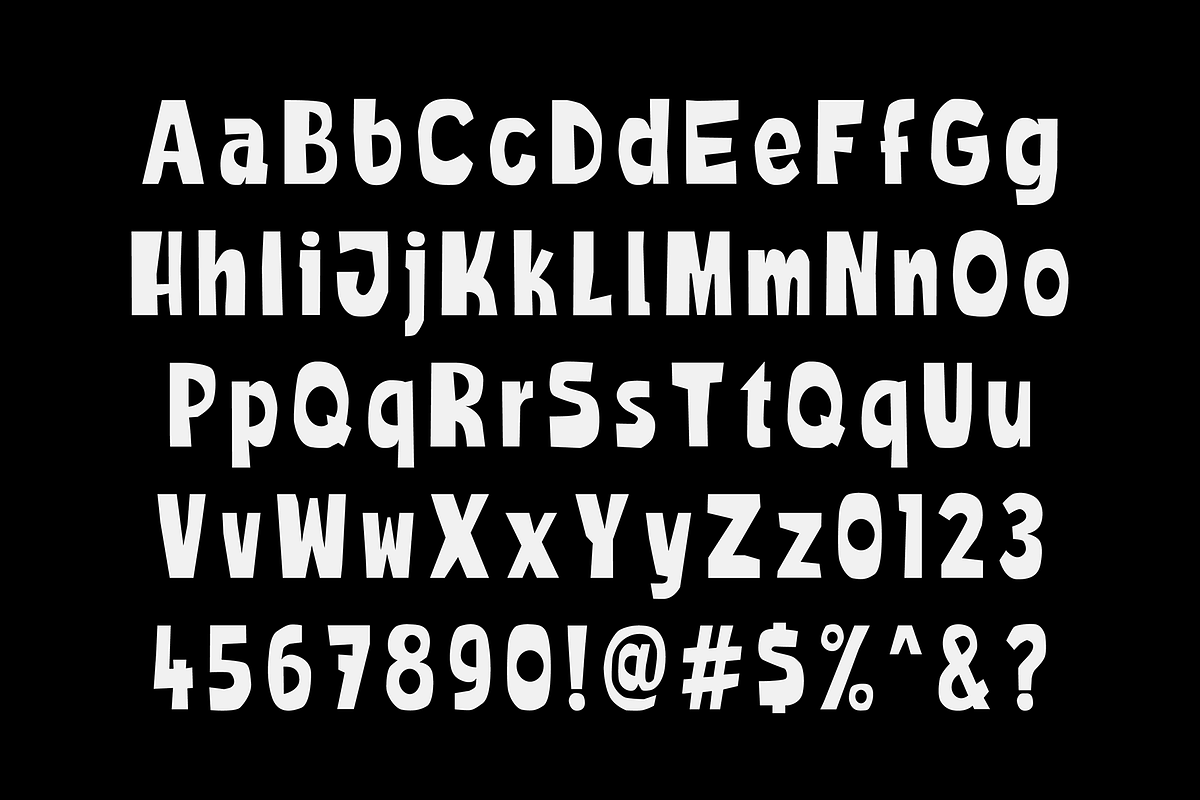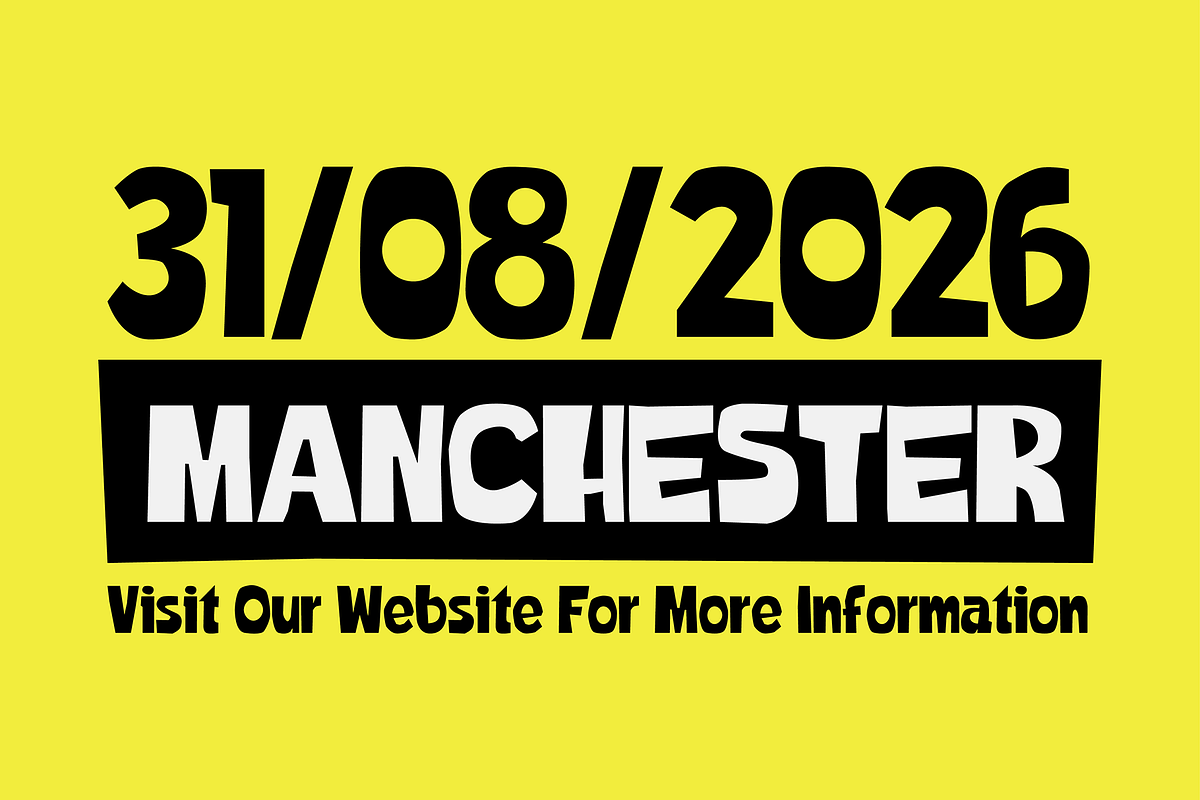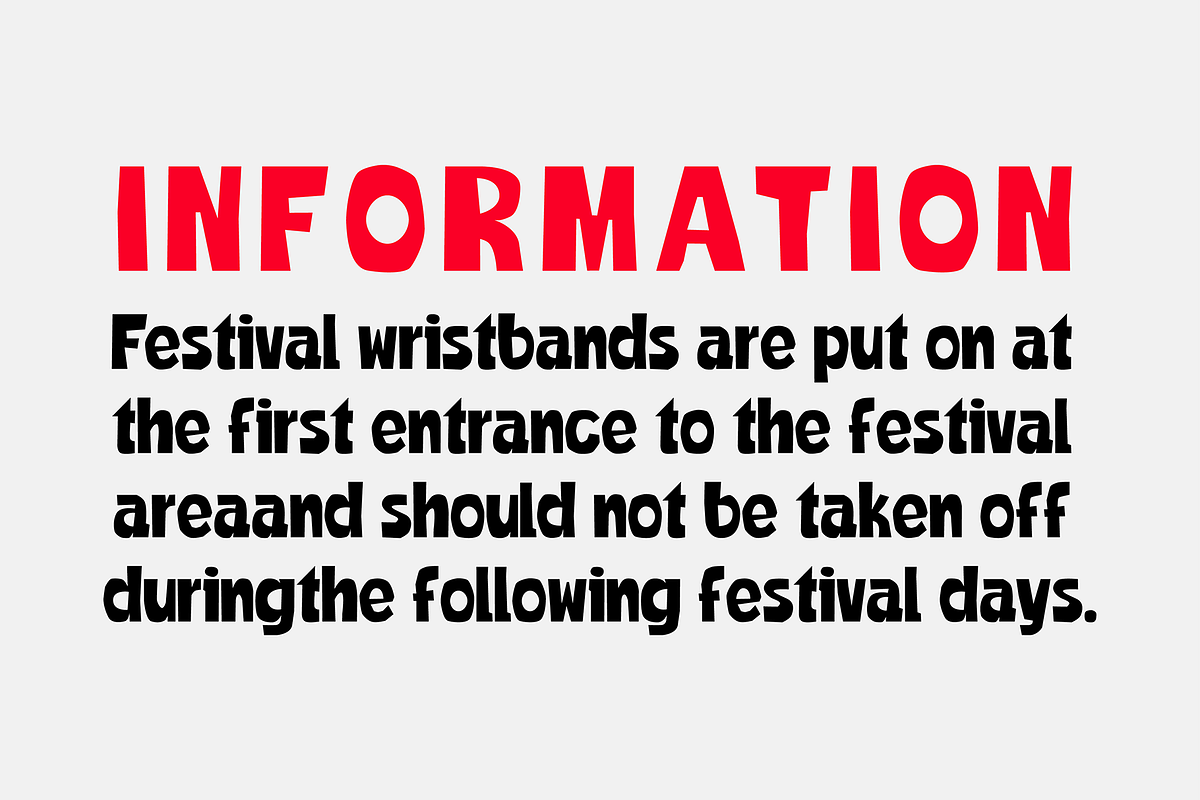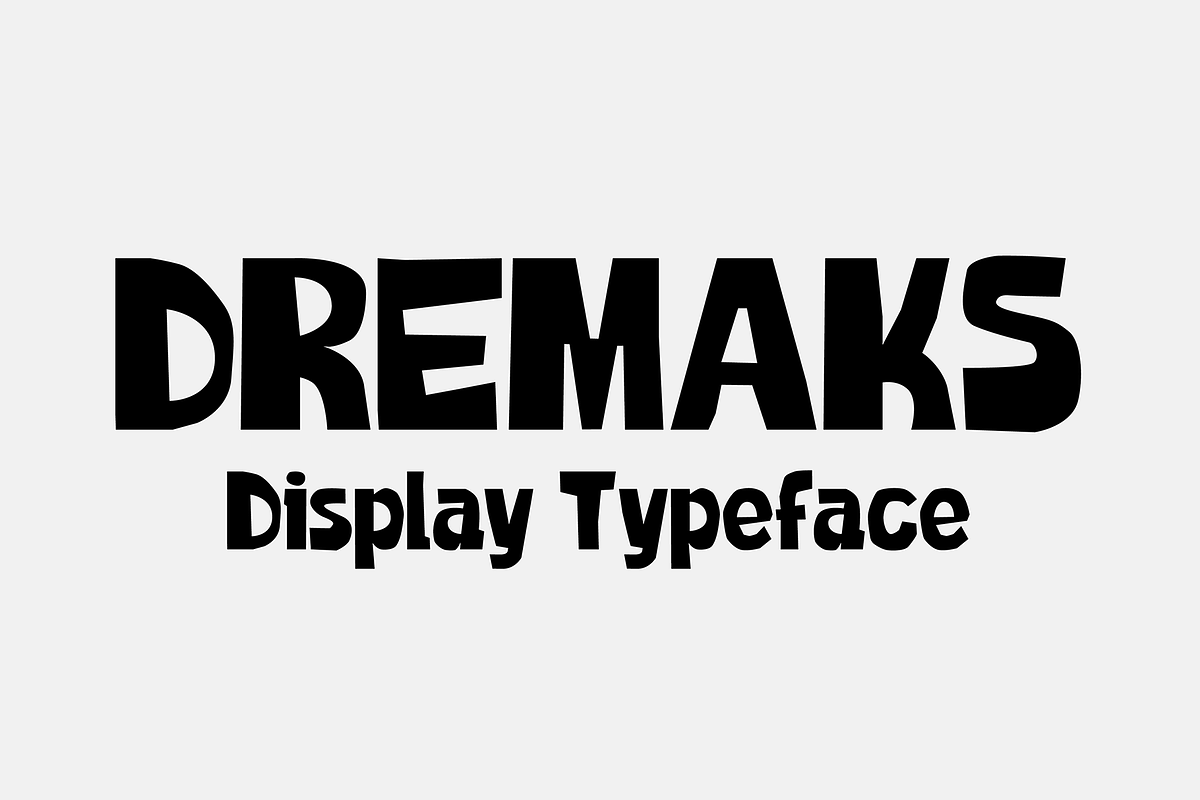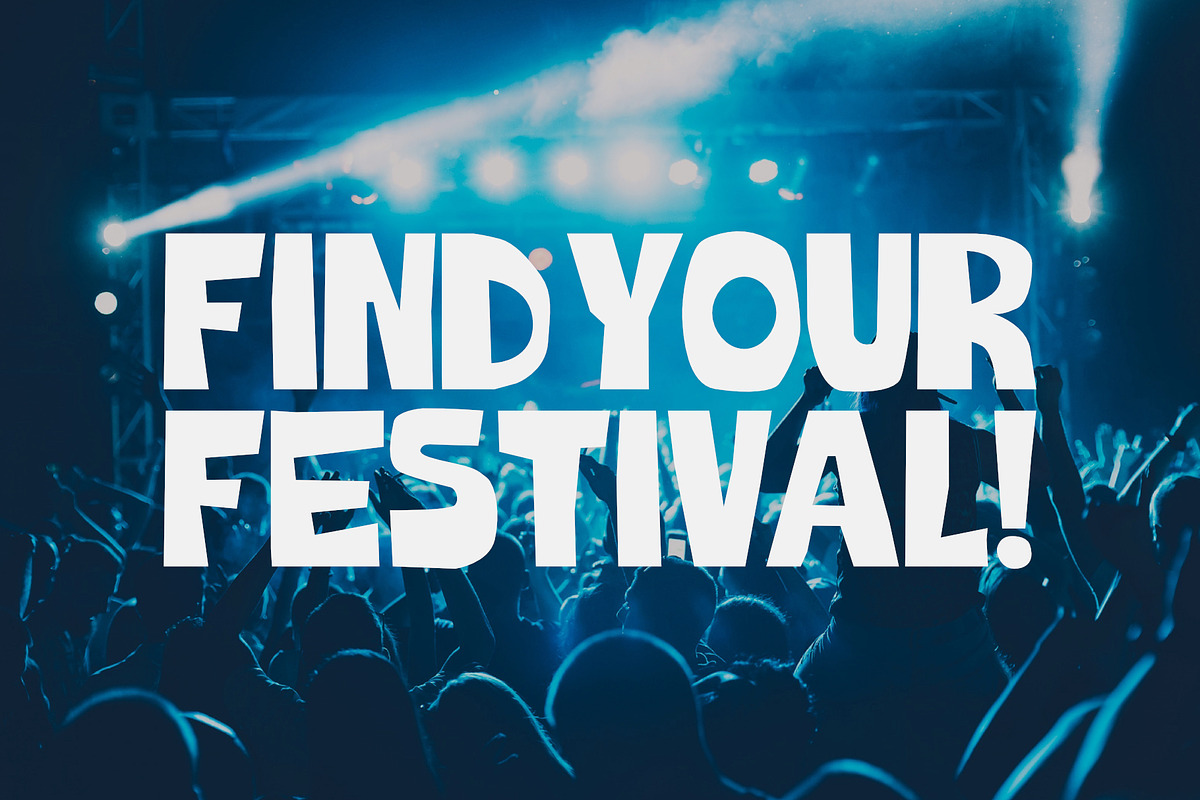
Dremaks | Display Font
Dremaks is a modern typeface that stands out with its unique, handcrafted aesthetic. The font's design was inspired by the look of glyphs cut from paper, giving it a playful and intriguing feel. Dremaks is ideal for projects needing a distinctive touch, such as slogans, headlines, logotypes, clothing designs, and posters. Its versatility allows it to work well with both colors and black and white.